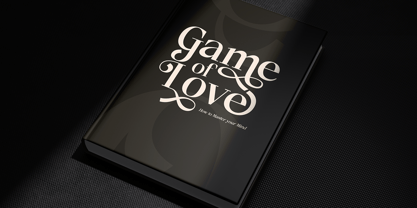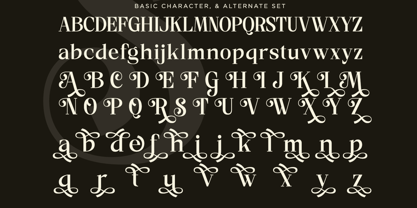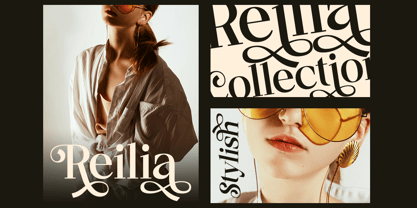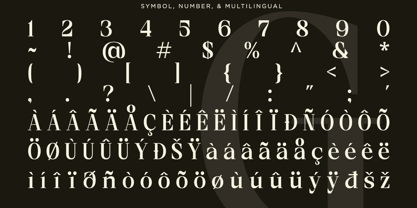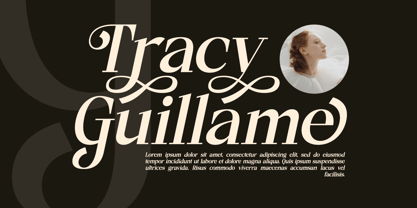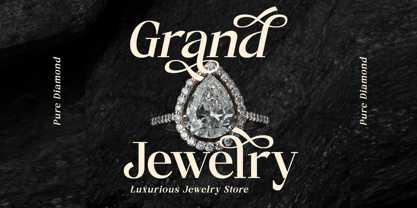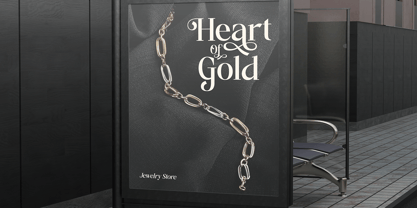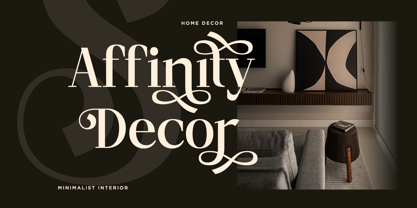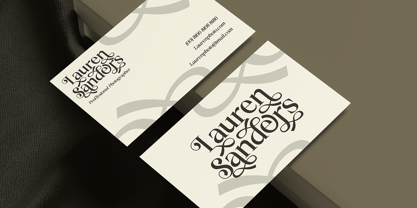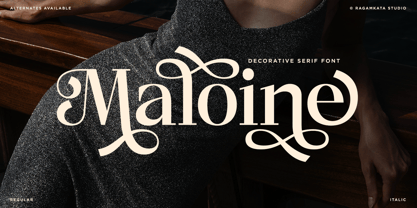
Maloine
by RagamKata
The Maloine Font Family was designed by Yogiswhara Dio Prakoso Riadi and published by RagamKata. Maloine contains 2 styles and family package options. More about this family
Maoline is a timeless display serif typeface that seamlessly blends classic refinement with elegant modern touches. Designed to reflect the artistry of vintage lettering, each character showcases smooth curves, subtle swashes, and striking contrast, making it perfect for brands that desire beauty, sophistication, and distinct personality. Drawing inspiration from historic typography and the romantic essence of botanical interiors, Maoline infuses a rich vintage atmosphere into any project. Whether you are creating refined logotypes, packaging, wedding stationery, perfume labels, or editorial titles, this font elevates your work with a gentle, poetic charm, ensuring it stands out with grace and style. Thank You, Have a nice day Ragamkata Studio